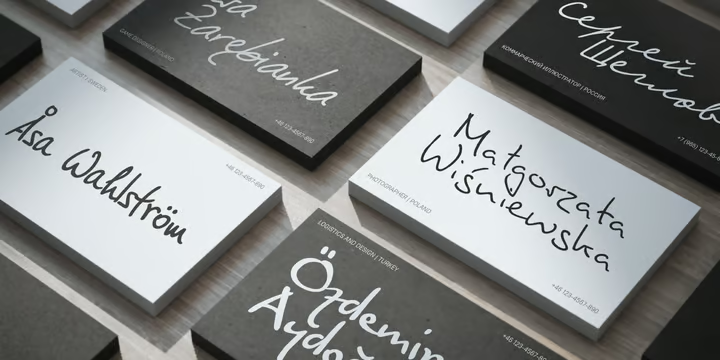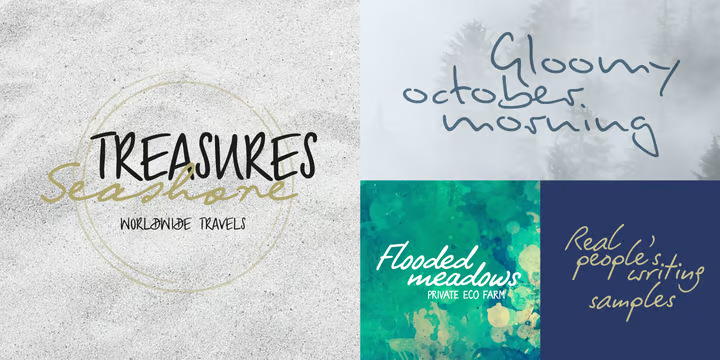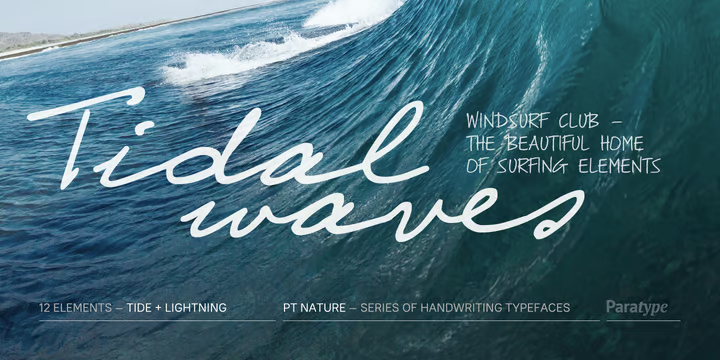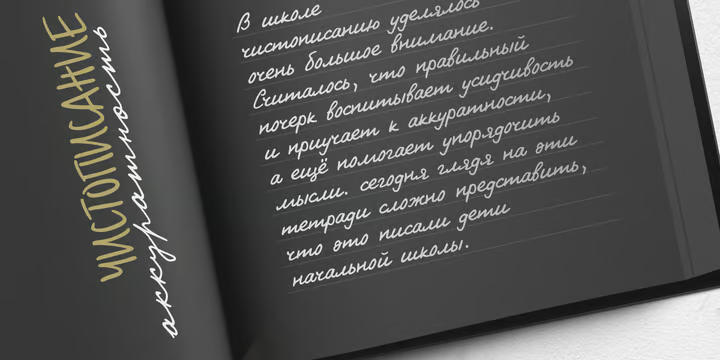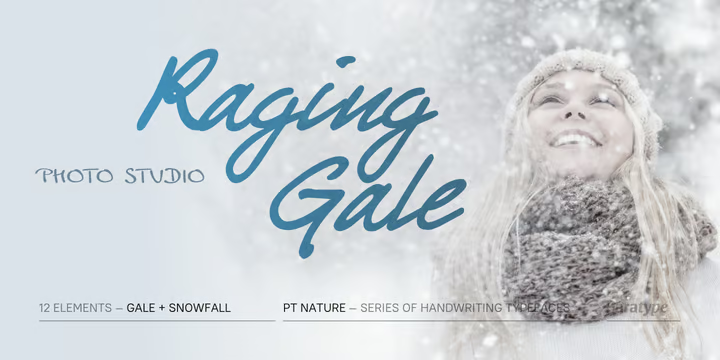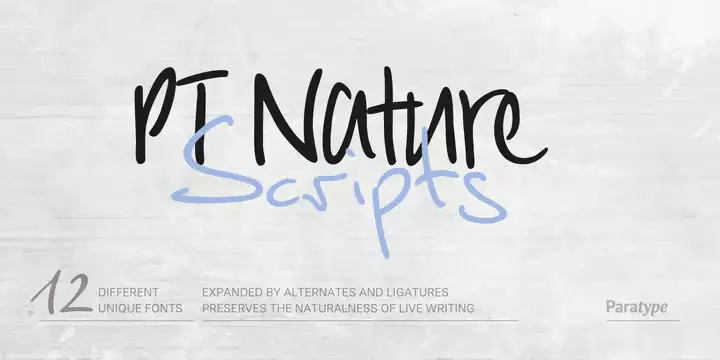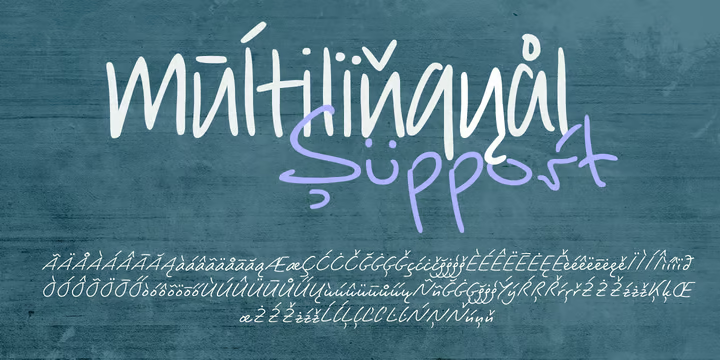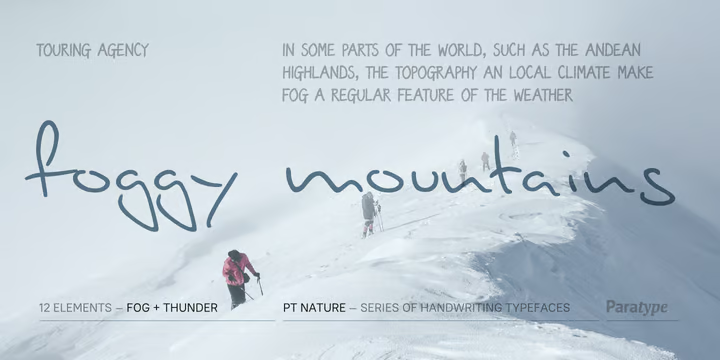
PT Nature Font
PT Nature by Paratype is a collection of scripts based on handwriting of real people. Text set in PT Nature looks genuine and human. The fonts are a great fit for advertisement and packaging designs as well as for informal communications. PT Nature was created by Gennady Fridman and Isabella Chaeva with help from the Paratype design team.